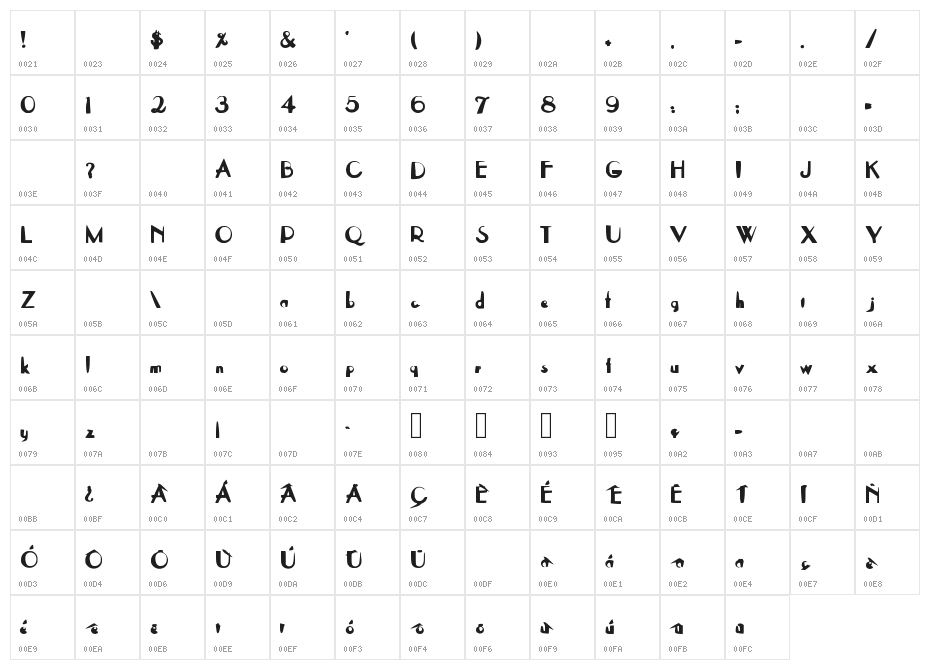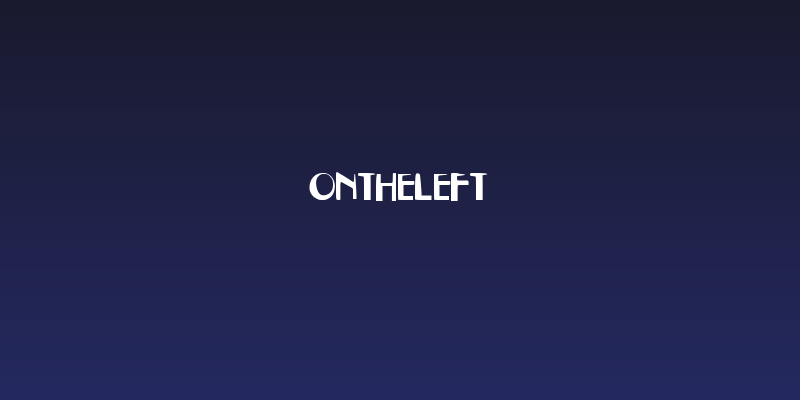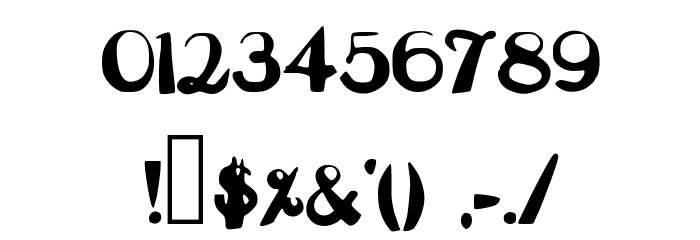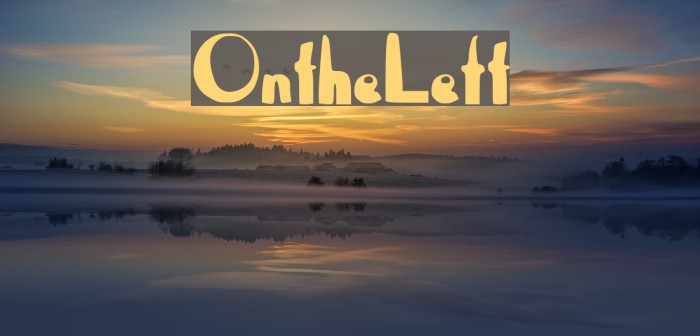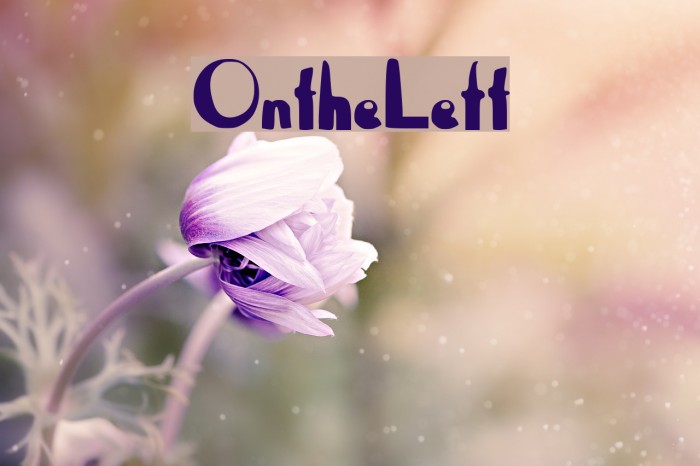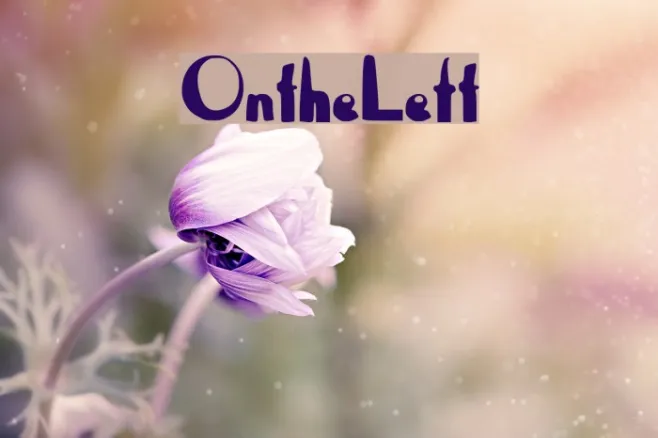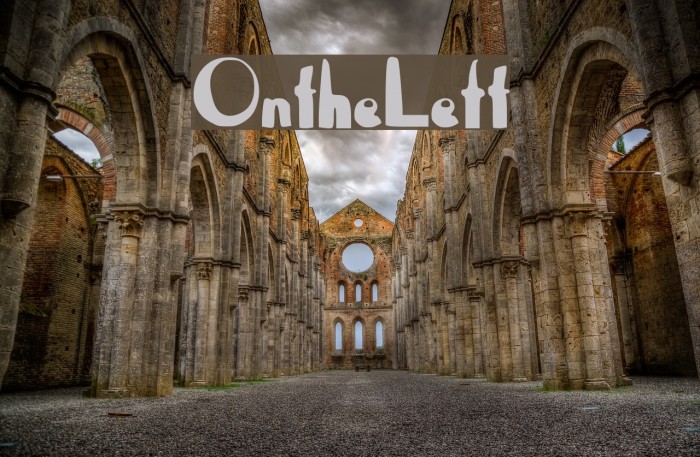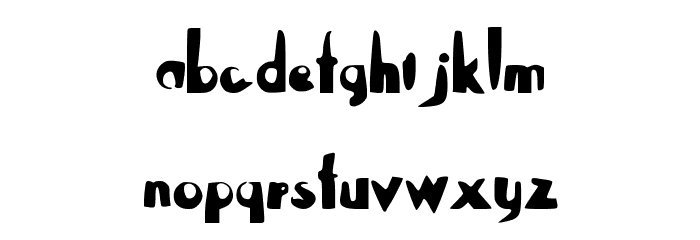
OntheLeft Font
OntheLeft Description
This font features a playful and bold design with a unique, slightly irregular shape that gives it a whimsical and artistic feel. The uppercase letters are characterized by their thick strokes and varying widths, creating a dynamic and eye-catching appearance. The lowercase letters maintain this playful style, with some characters having exaggerated curves and angles. The numerals are bold and consistent with the overall style, ensuring readability while maintaining the font's distinctive character. Special characters are creatively designed, adding to the font's versatility and charm.
| Overall Style | Playful, Artistic |
| Proposed Projects | Ideal for children's books, playful branding, creative posters, and artistic projects. |